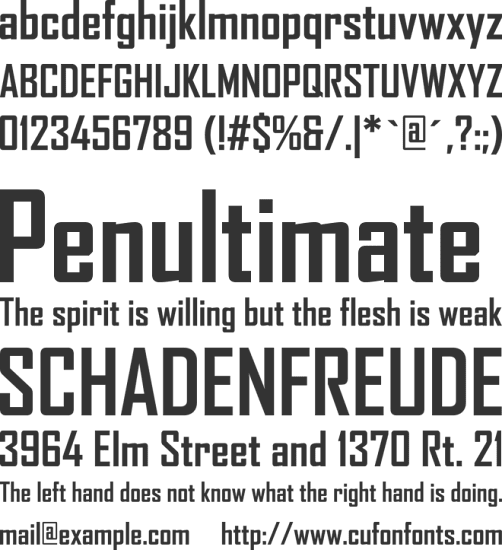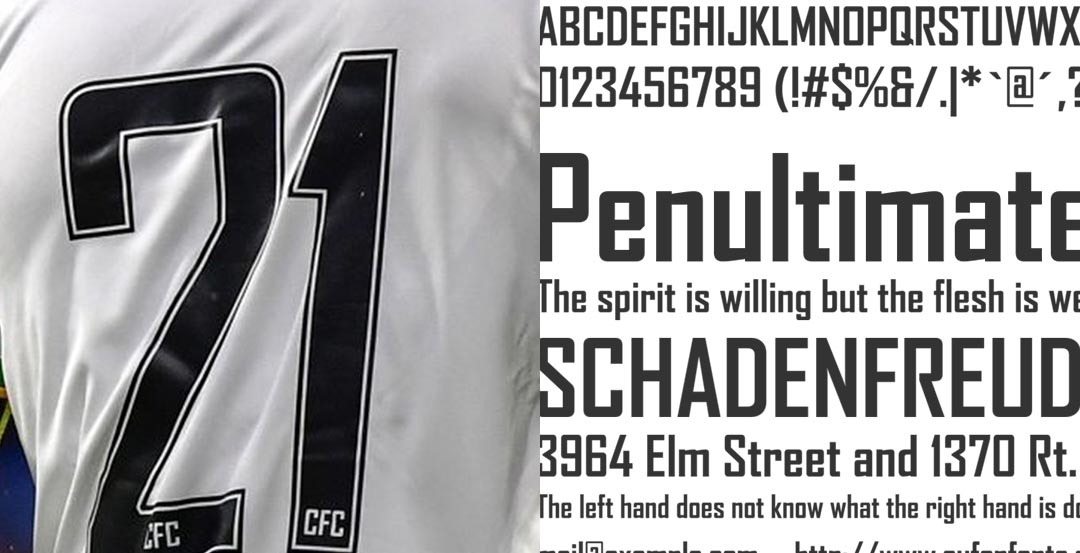
Celtic 20-21 Cup Kit Font Revealed - Previously Used By Lyon, Shakthar & Others
When Adidas launched the new Celtic Football Club 2020-21 home kit in early July 2020, there was some controversy about the possible new Celtic FC kit font. Now with the Scottish club having played some friendlies and the Scottish Premiership having been started, we get a look at the actual Celtic FC typeface...
Celtic 2020-2021 Cup Kit Font - Agency FB Typeface
The Celtic 20-21 kit font has a narrow, edgy appearance, that does look unique at first glance. The Celtic 20-21 kit font, however, is nothing bespoke for the club but based on a well-known typeface.
As noted by our Brazilian follower Samarony Lima (@samaronylp), the Celtic 20-21 kit font is actually an official typeface from the 1990s - the Agency FB font.
ATF Agency Gothic was designed by M.F. Benton in 1932 as a single titling face. In 1990 David Berlow saw potential in the squared forms of the narrow, monotone capitals. He designed a lowercase and added a bold to produce Font Bureau Agency, an immediate popular hit. Sensing further possibilities, he worked with Tobias Frere-Jones and Jonathan Corum to expand Agency into a major series, offering five weights in five widths for text & display settings. The result is the Agency FB font.
Scottish PremiershipThe new Celtic Adidas Cup looks similar to the official Scottish Premiership typeface
In the Scottish Premiership, Celtic is using the league-wide font. The new Celtic FC 20-21 kit Cup font appears to be chosen to look similar to the official Scottish Premiership typeface, especially with the border style chosen by Celtic.
On the bottom of Celtic's Cup jersey font is the acronym CFC in the Agency FB style.
Celtic is not the first team to use the Agency FB typeface - the font style has been used by teams such as Lyon, Shakhtar Donetsk and some Umbro Brazilian clubs.